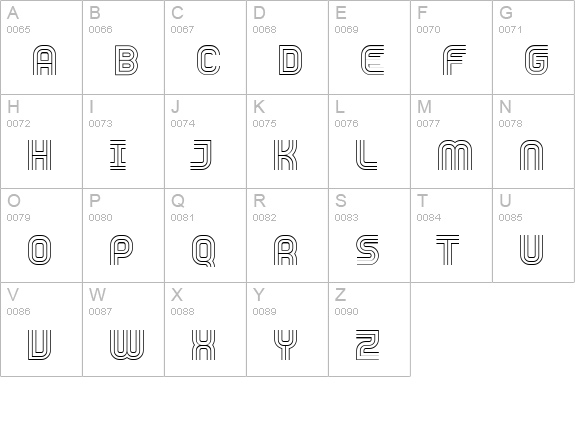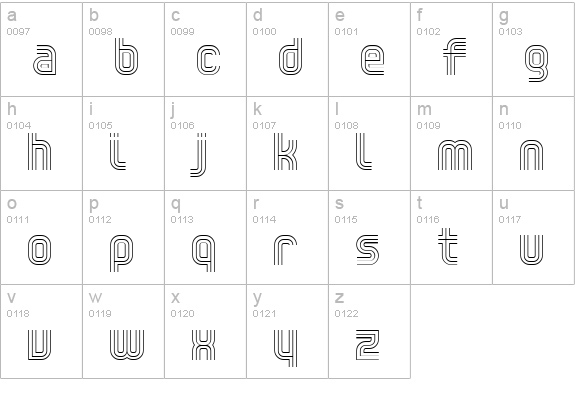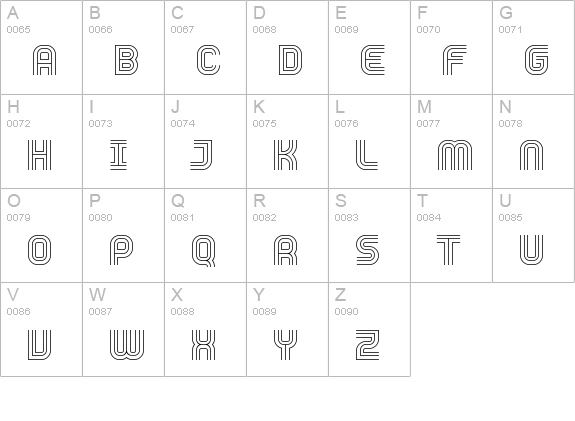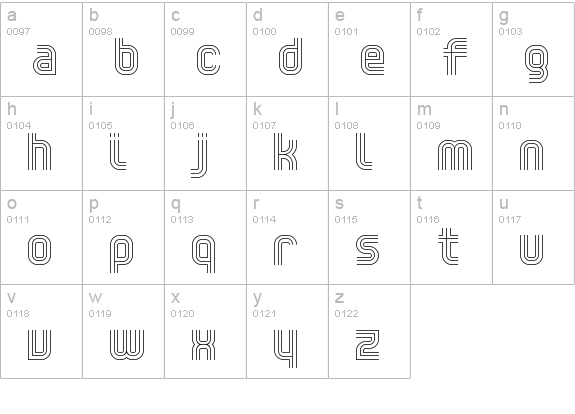
Trisect ExtraLight is an airy, ultra-refined variant in the Trisect typeface family \xE2\x80\x94 well suited to minimalist headlines and refined display use.
Trisect ExtraLight font is a stunningly elegant and modern typeface that will transform any design into a work of art. With its delicate and refined strokes, this font exudes a sense of sophistication and effortless style. Perfect for adding a touch of class to your projects, Trisect ExtraLight font is versatile and can be used in a variety of settings. Whether you're designing a logo, creating a website, or crafting a beautiful invitation, this font will elevate your work to the next level. One of the standout features of Trisect ExtraLight font is its incredible readability. The clean and crisp lines ensure that every letter is easily distinguishable, making it a pleasure to read on any medium. Whether it's on a printed piece or on a digital screen, this font will captivate and engage your audience. And the best part? Trisect ExtraLight font is free! That's right, you can download this incredible font without spending a dime. Simply head over to FontsMarket.com, where it is freely available for download. Now you can enhance your designs without breaking the bank. So why wait? Take advantage of the beauty and versatility of Trisect ExtraLight font today. Download it for free at FontsMarket.com and unlock a world of endless possibilities for your design projects.